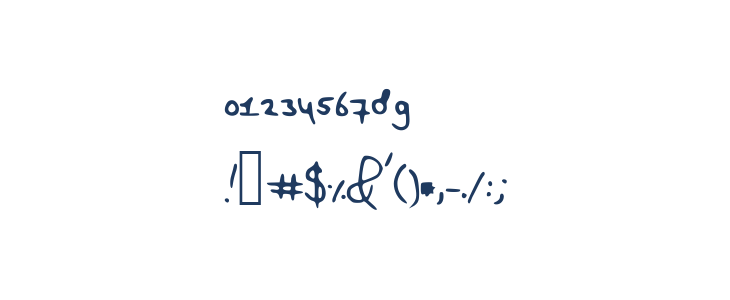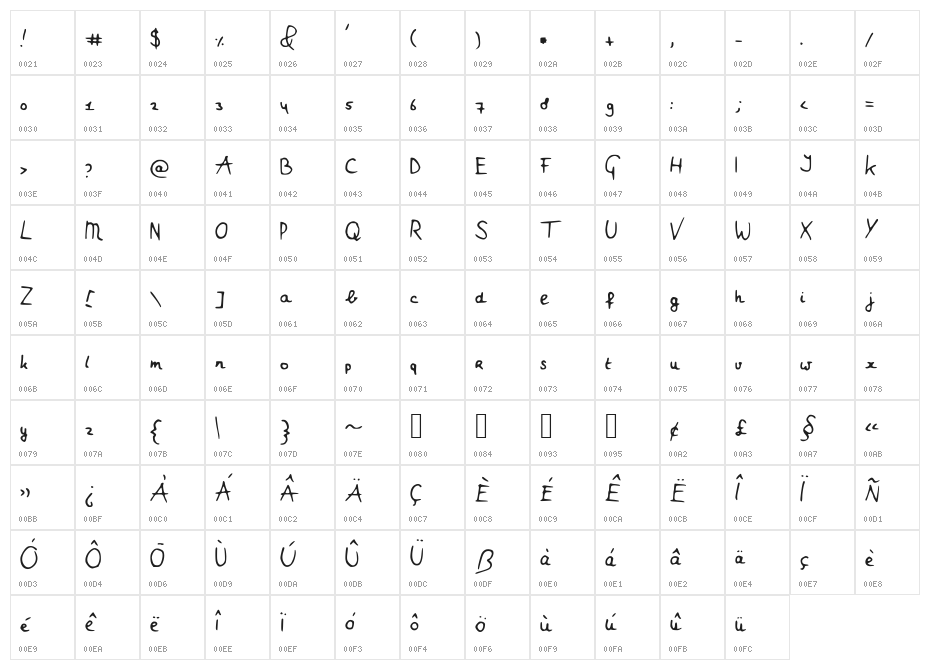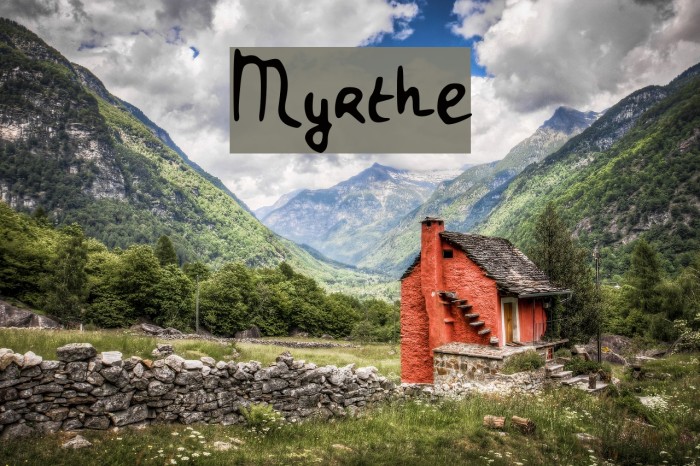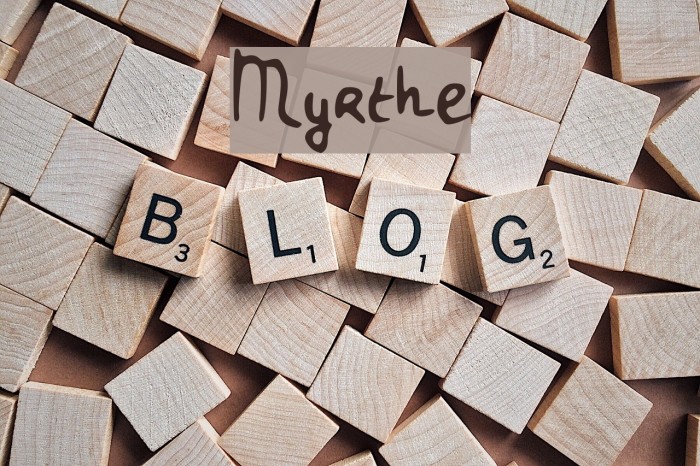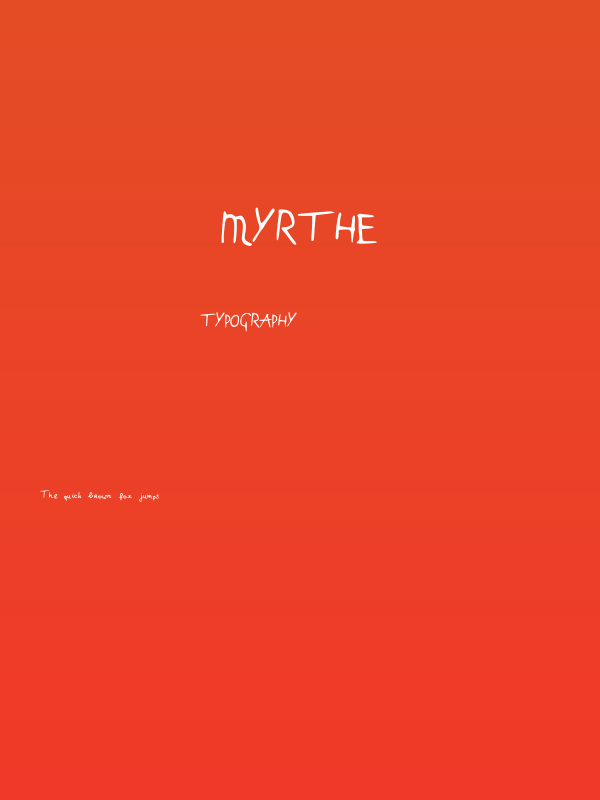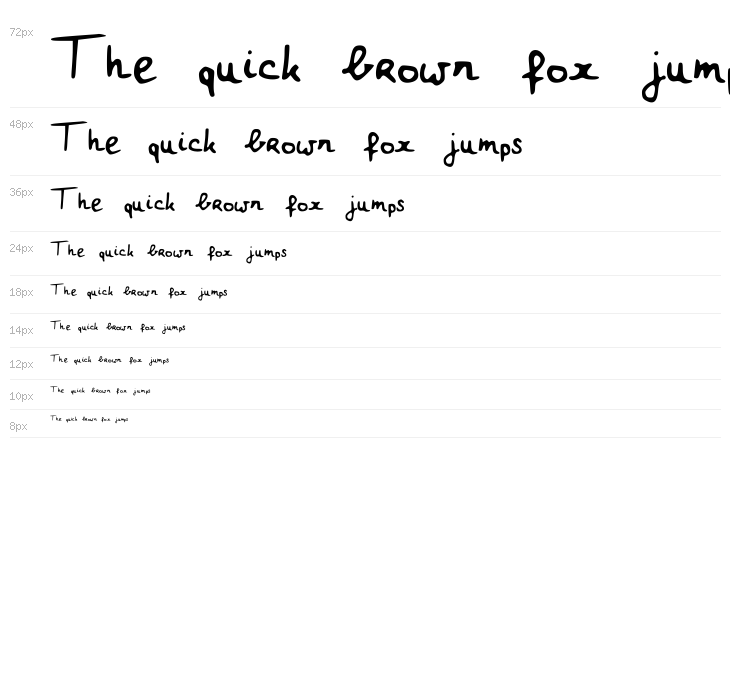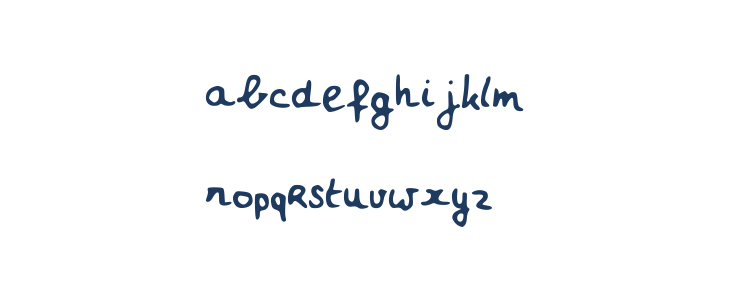
Myrthe Font
Myrthe Description
This font exhibits a playful and casual handwritten style, characterized by its irregular strokes and organic flow. The uppercase letters are bold and slightly uneven, giving a sense of spontaneity and creativity. The lowercase letters maintain a consistent style, with some letters like 'g' and 'y' featuring distinctive loops and tails. Numbers are clear and legible, matching the overall informal aesthetic. Special characters are included, maintaining the same whimsical and hand-drawn feel. This font is perfect for projects that require a personal touch, such as invitations, greeting cards, or creative branding.
| Overall Style | Casual, Creative |
| Use Case | Headlines, Logos, Informal Text |
| Proposed Projects | Ideal for invitations, greeting cards, personal branding, and creative projects. |